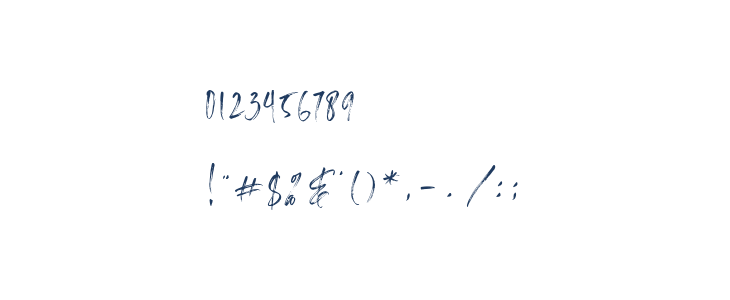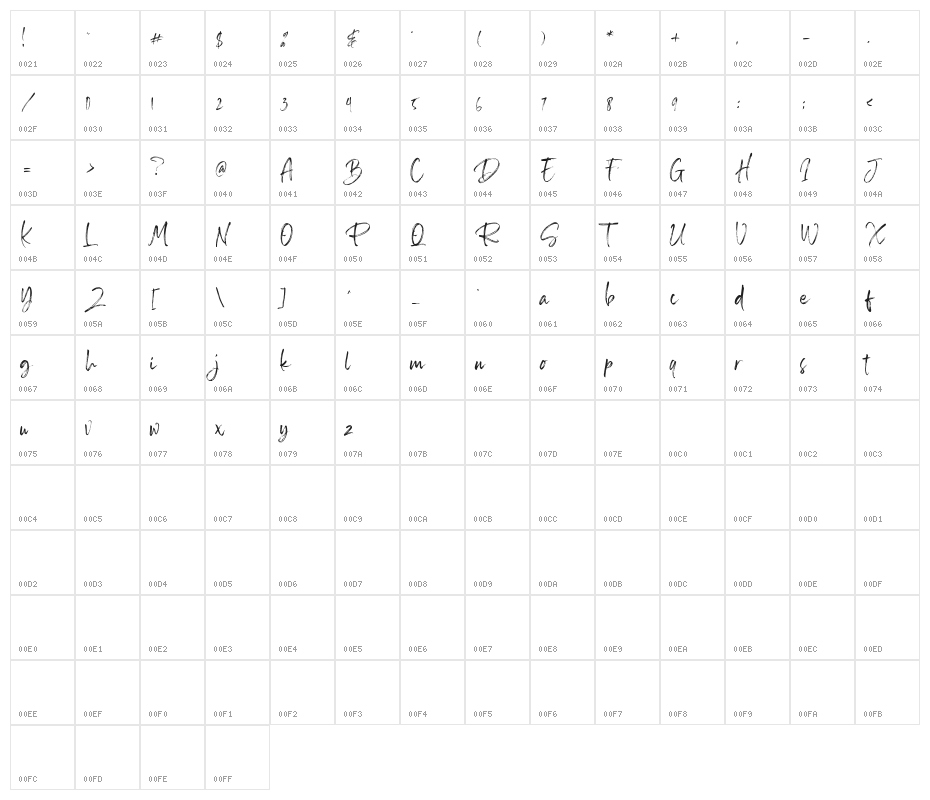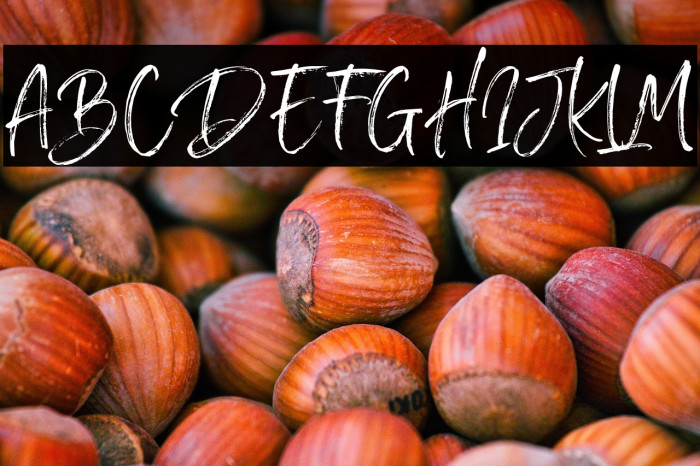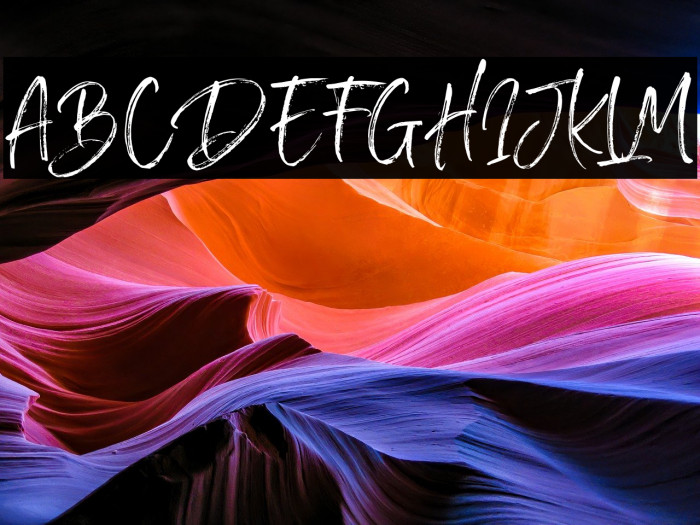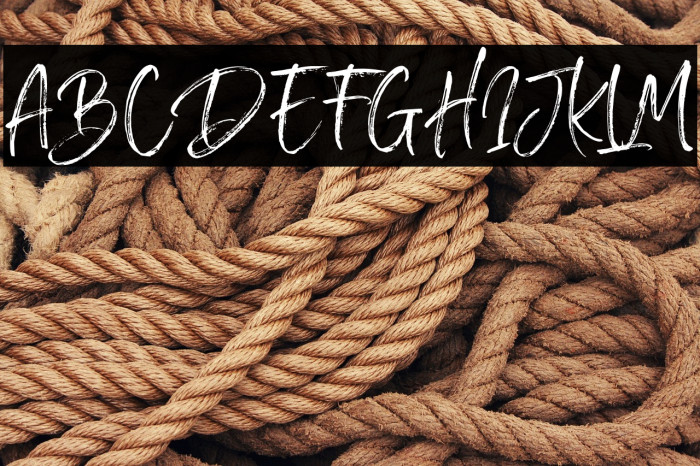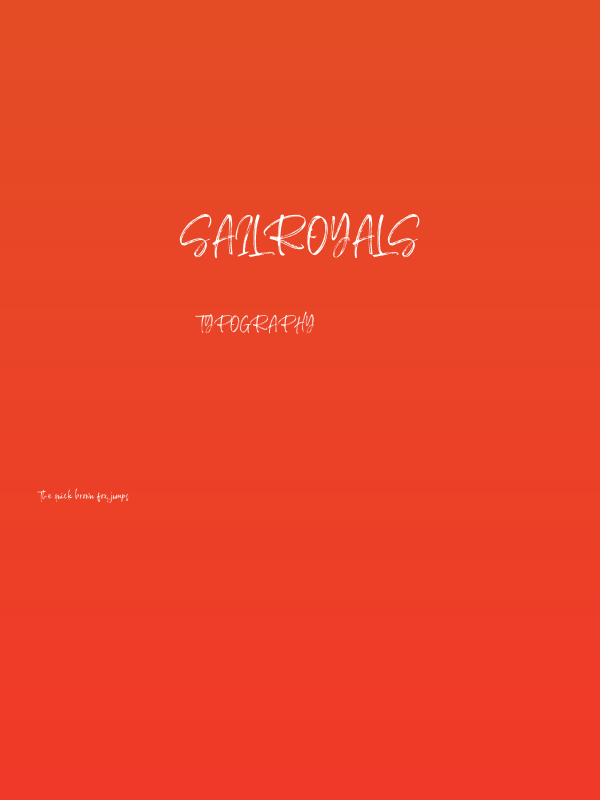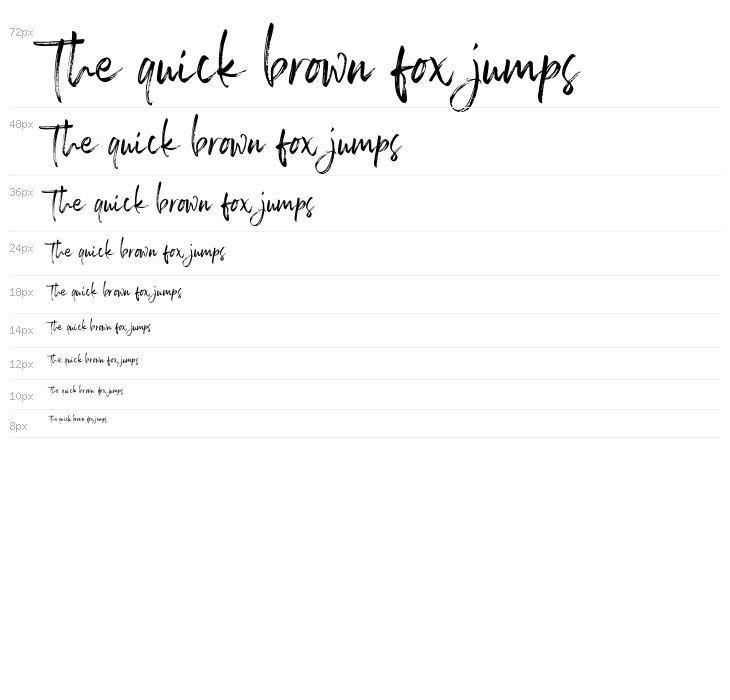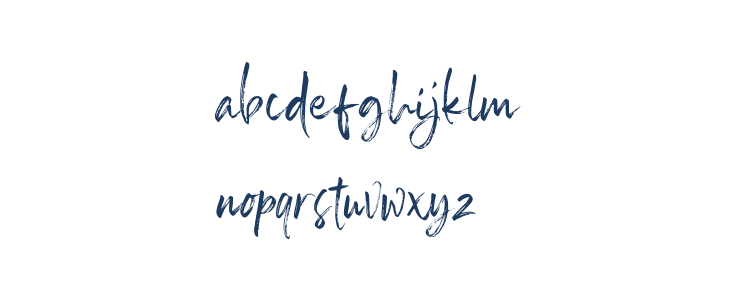
SailRoyals Font
SailRoyals Description
This font features a dynamic and expressive handwritten style, characterized by its fluid strokes and artistic flair. The letters exhibit a natural flow, with varying thickness that adds a sense of movement and energy. The uppercase letters are bold and prominent, while the lowercase letters maintain a consistent rhythm, enhancing readability. The numerals are distinct and align well with the overall aesthetic. Special characters are creatively integrated, maintaining the font's artistic theme. This font is perfect for projects that require a personal touch or a creative edge.